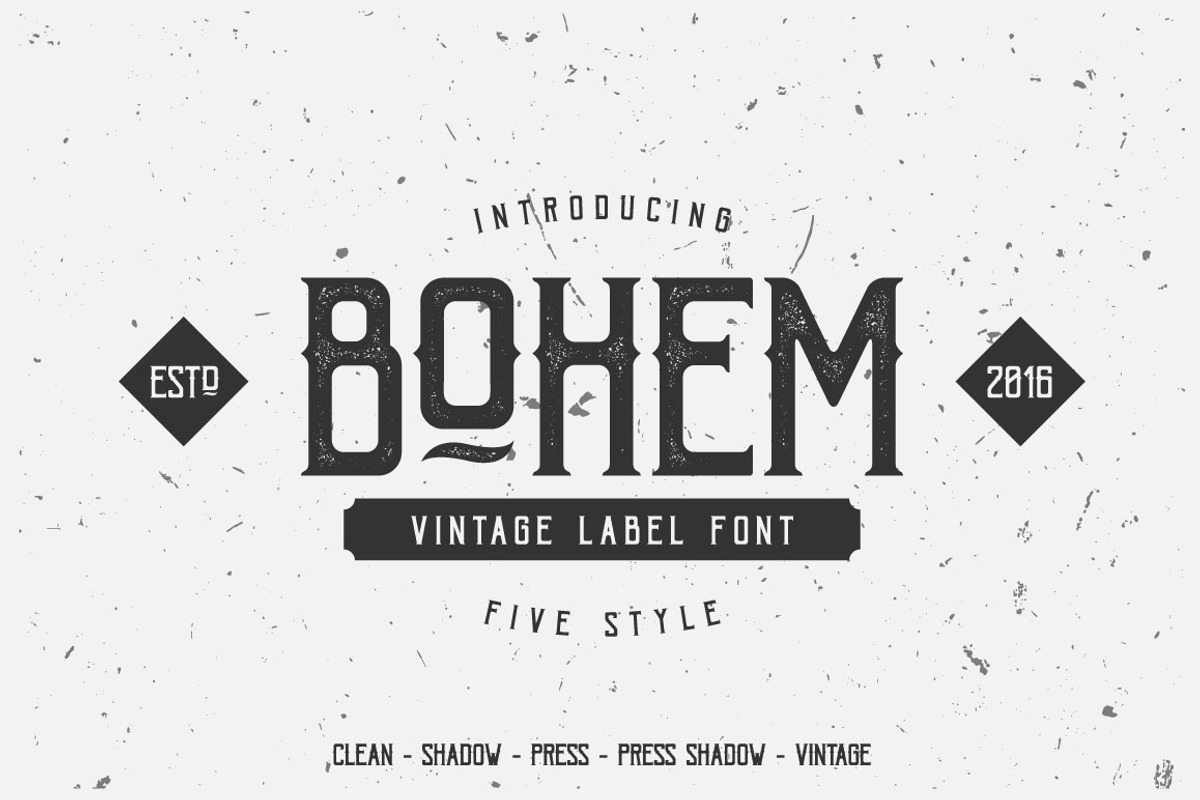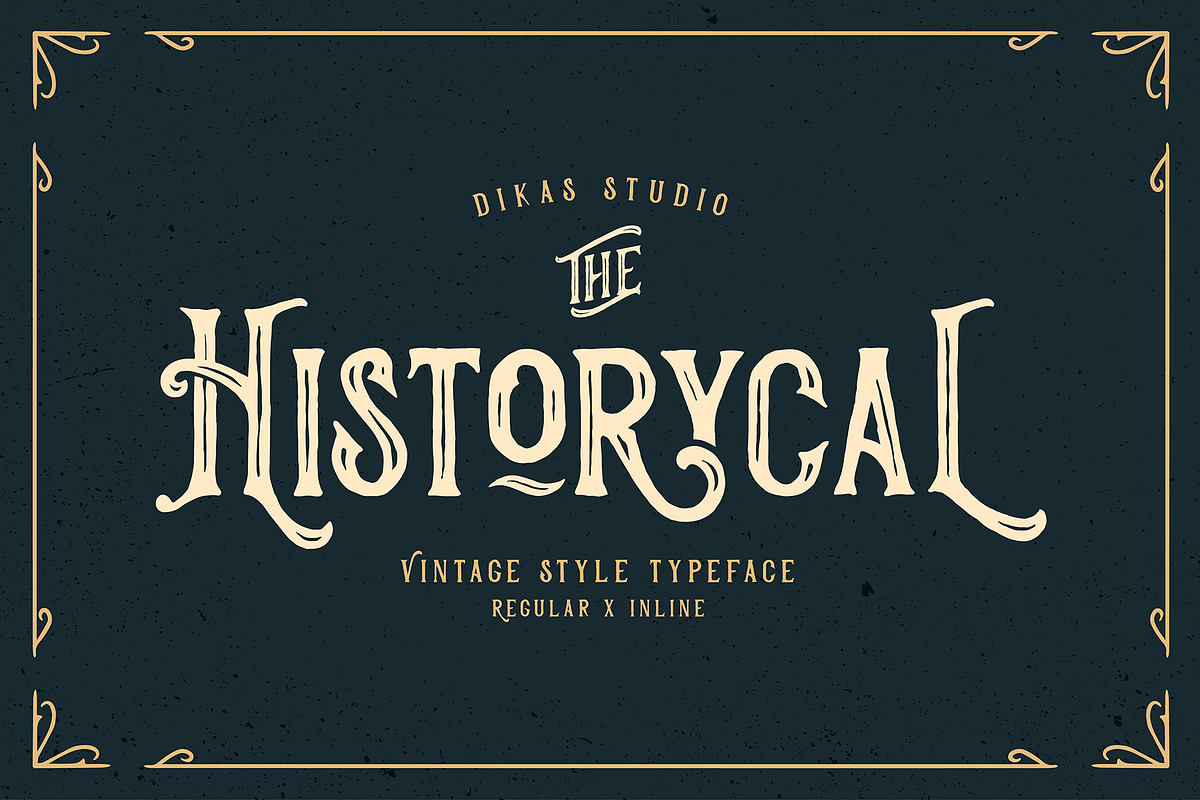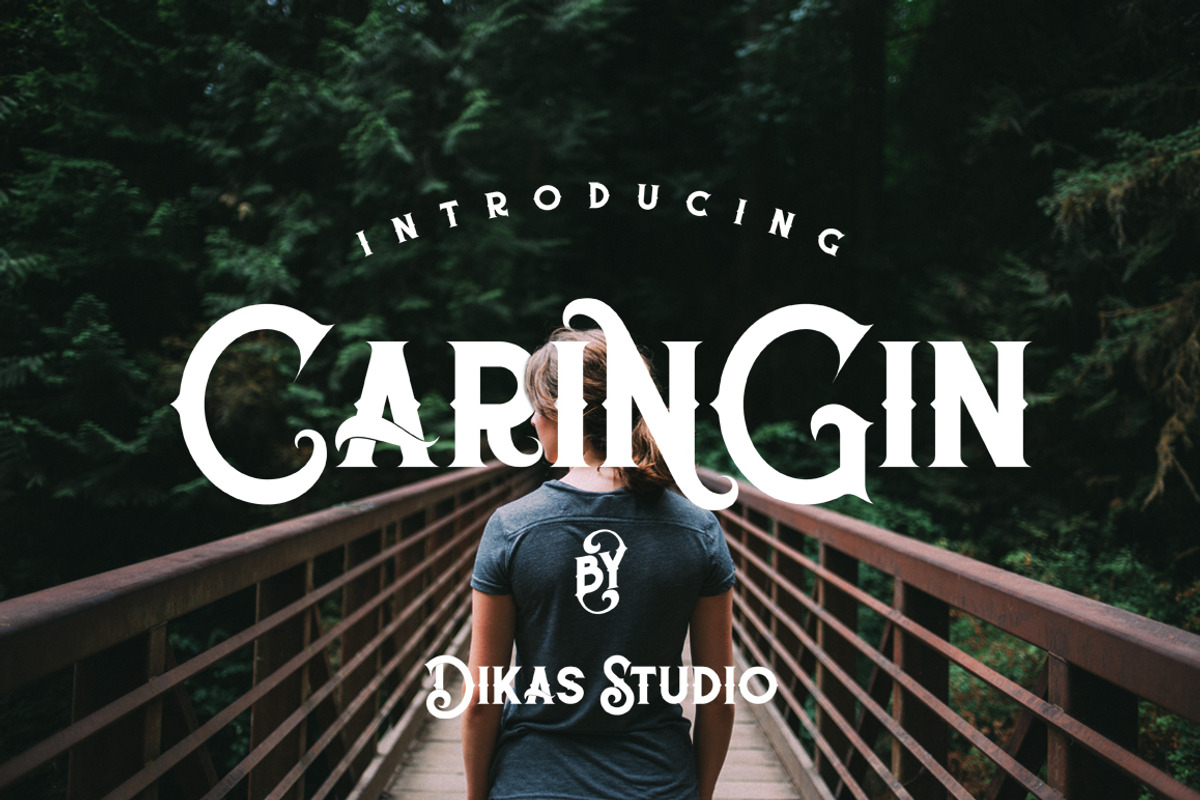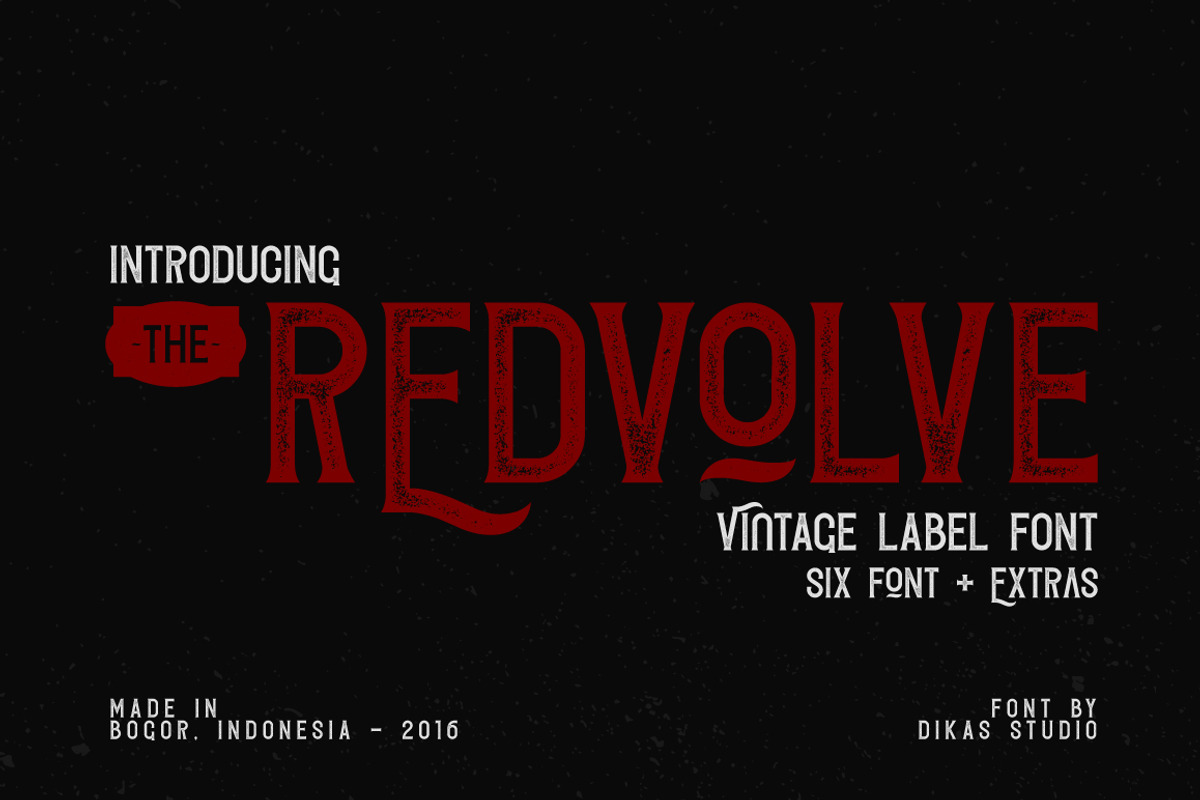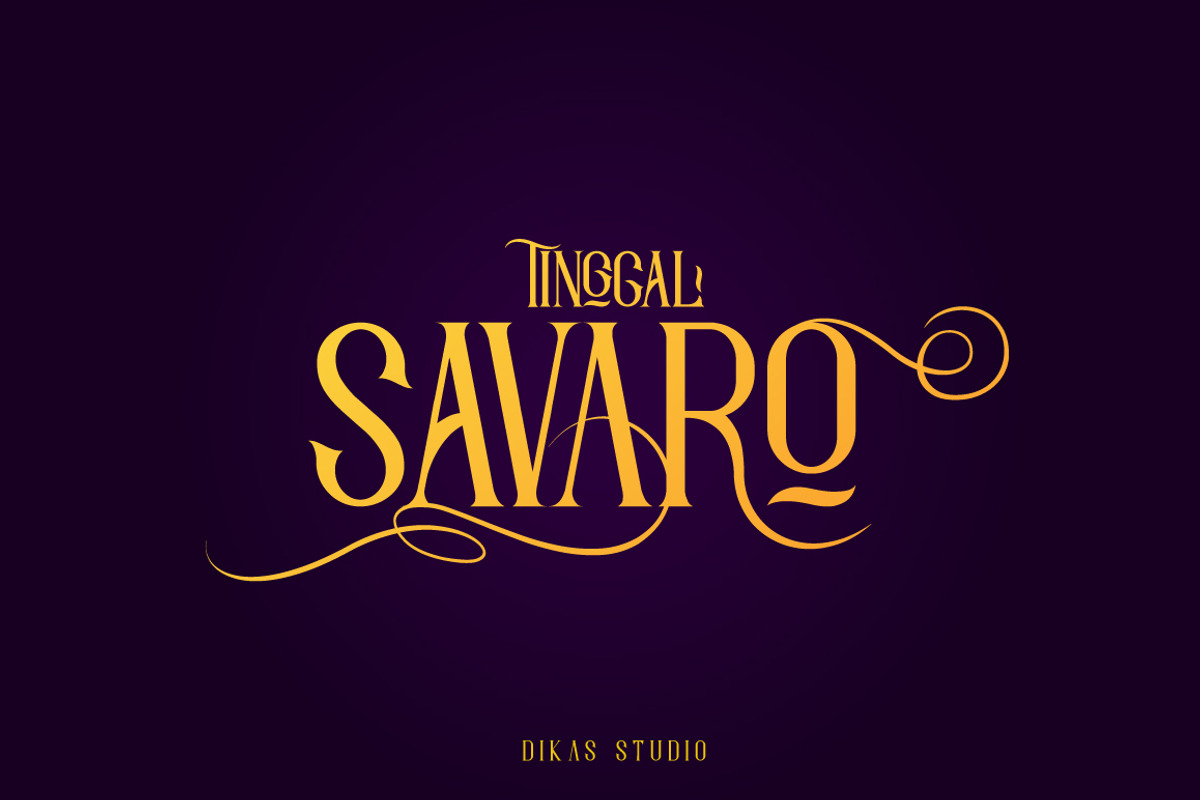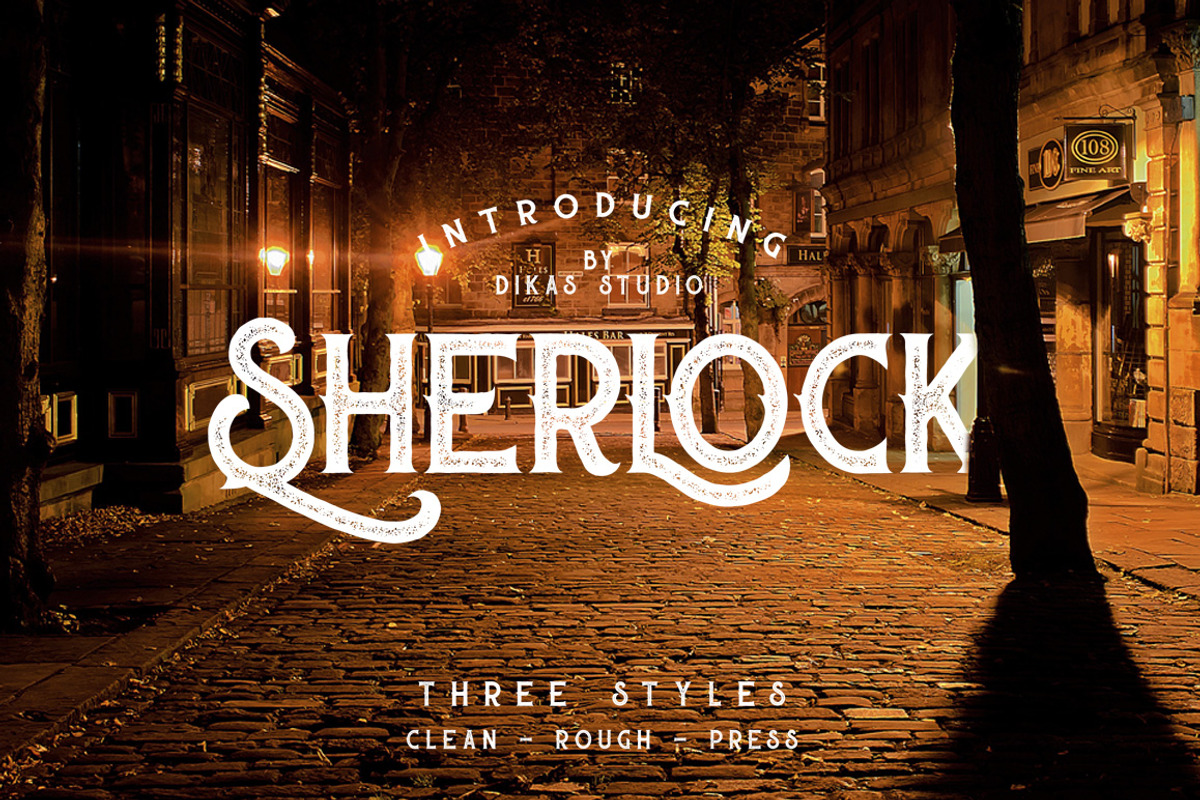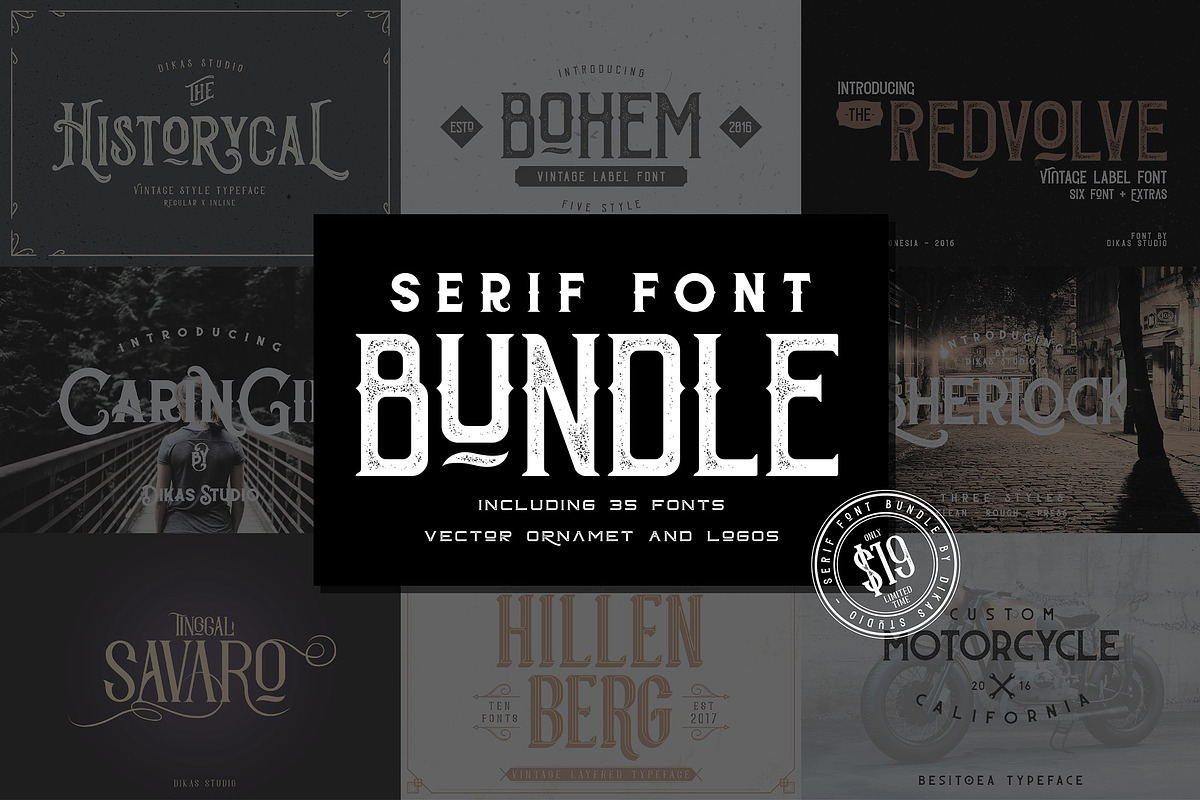
Serif Font Bundle
Hello guys ! Let me present my first font bundle named Serif Font Bundle ! Including 8 serif vintage typeface with total 35 font, extras vector and ornament and some logo template. The typeface in this bundle have a very vintage serif character with any style like a press, shadow, rough and various character you can mix and match to get crazy vintage design and you can get all the font in this bundle just for only $19 !
Bohem Typeface - 5 Font Styles :
Historycal - 2 Font Styles :
Hillenberg+Extras Intro Sale 50%Off! :
Sherlock Typeface - 3 Font Styles :
Redvolve Typeface - 6 Fonts + Extras :
ChapterOne - 4 Font+Extras :